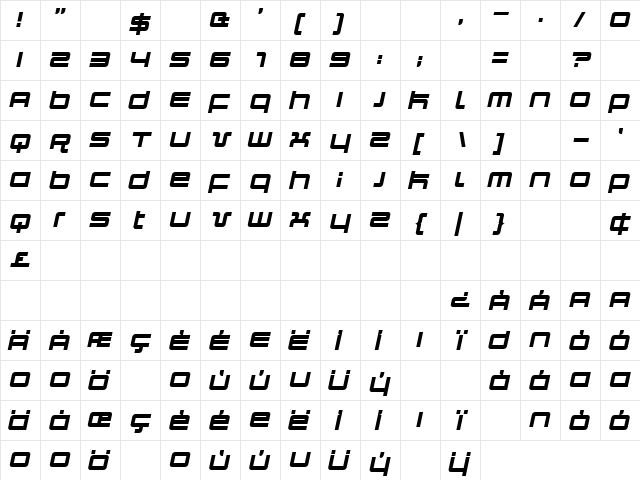
Quark Italic
Design Context for Quark Typeface
Quark is a composed and adaptable typeface that performs quietly and consistently across a wide range of design contexts. The slanted form adds forward momentum and visual energy.
Pro Tip: Use Quark for emphasis, pull quotes, and subheadings where its slanted energy can add rhythm to the layout.